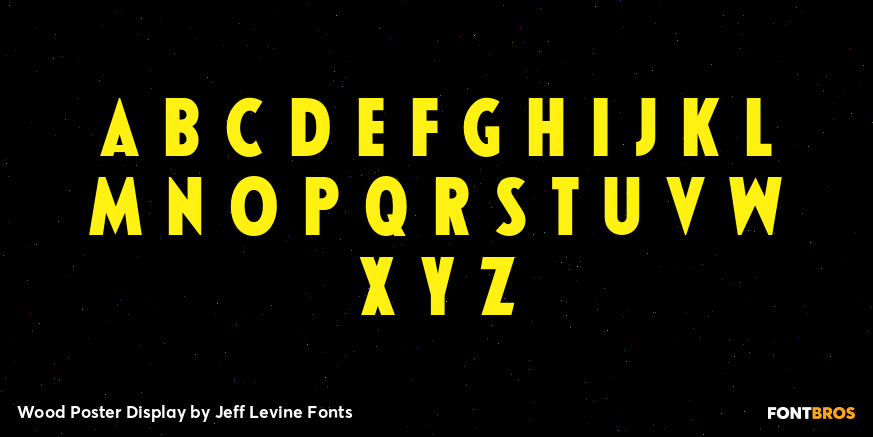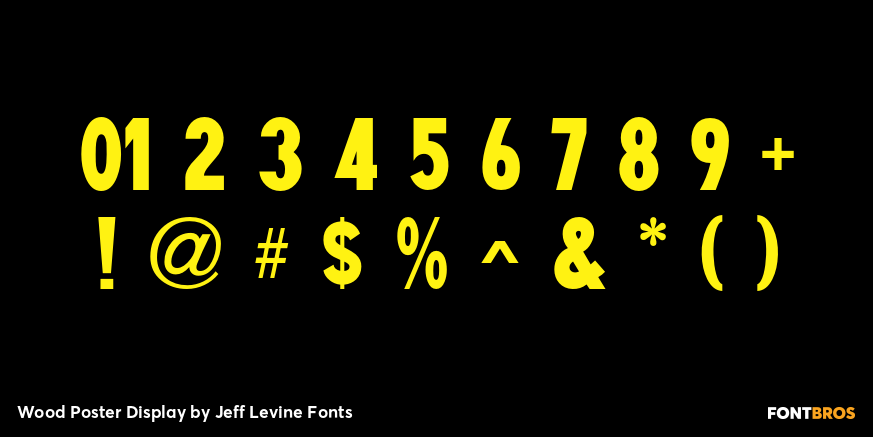
Wood Poster Display
Wood Poster Display JNL is a more casual sans wood type, with a bold and friendly appeal. This font offers a pleasant design which lends itself perfectly to titling, price cards, event notices and any print or web design that prefers a less formal structure to its typography.